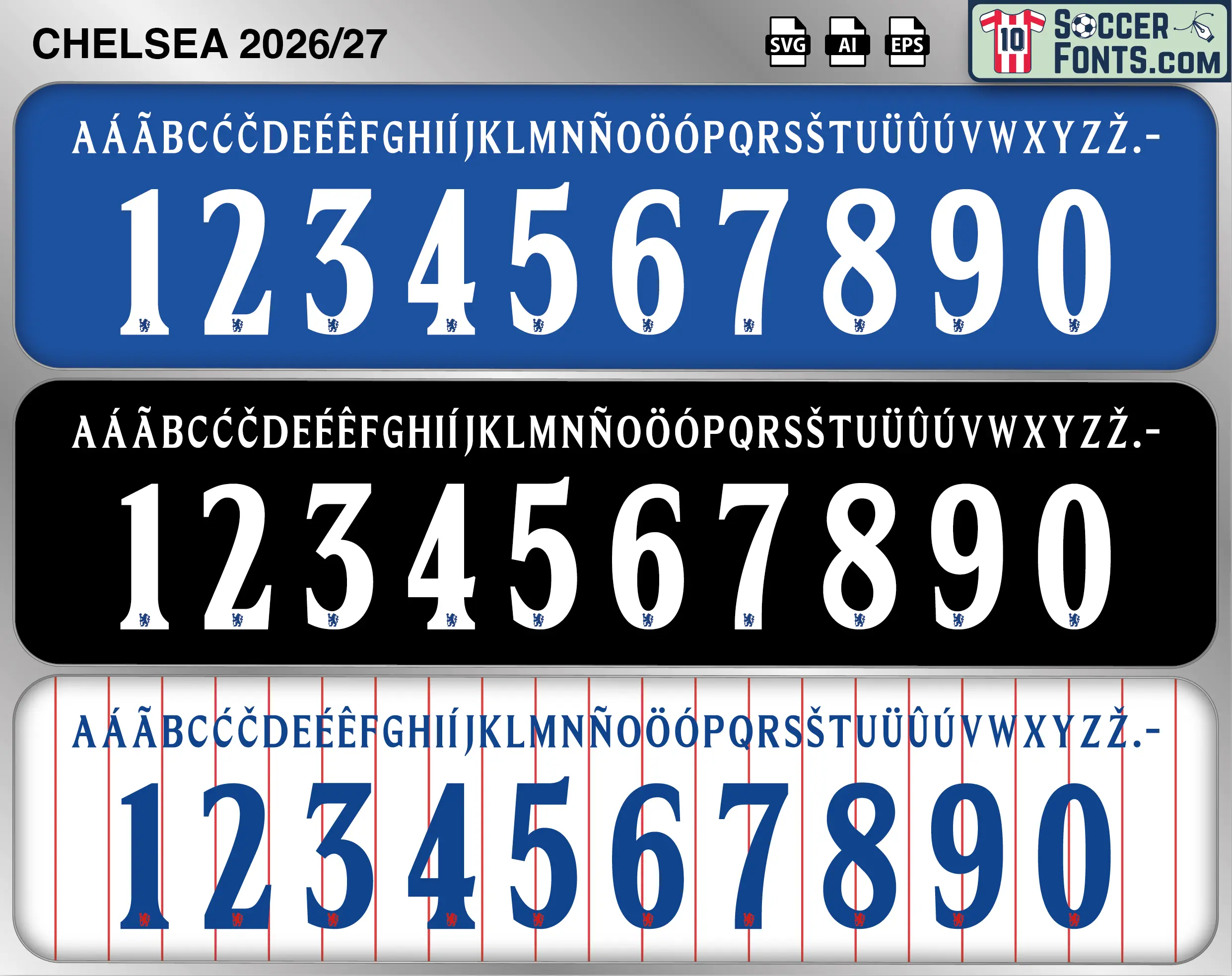
Download Chelsea 2026-27 font, an editable soccer jersey lettering design in vector format inspired by the Chelsea kit style used during the 2026-27 football season. This football font artwork is prepared for football shirt recreations, custom jersey projects, football kit mockups and sports graphic design workflows.
Chelsea’s 2026-27 identity also arrives during a period when the club is balancing Premier League ambitions with European competition and the expectations created by its recent trophy-winning seasons. The home kit itself carries historical significance, celebrating 75 years since Ted Drake became manager and transformed Chelsea’s identity from the Pensioners toward the Blues and the lion symbolism that became synonymous with the club. The Chelsea 2026-27 font therefore sits within a season that connects contemporary Stamford Bridge culture with Chelsea history. With Palmer, Caicedo, Fernández and an expanding group of young players forming the core of the side, the Chelsea 2026-27 font represents a specific shirt era for supporters, kit collectors and designers documenting the club’s continuing evolution.